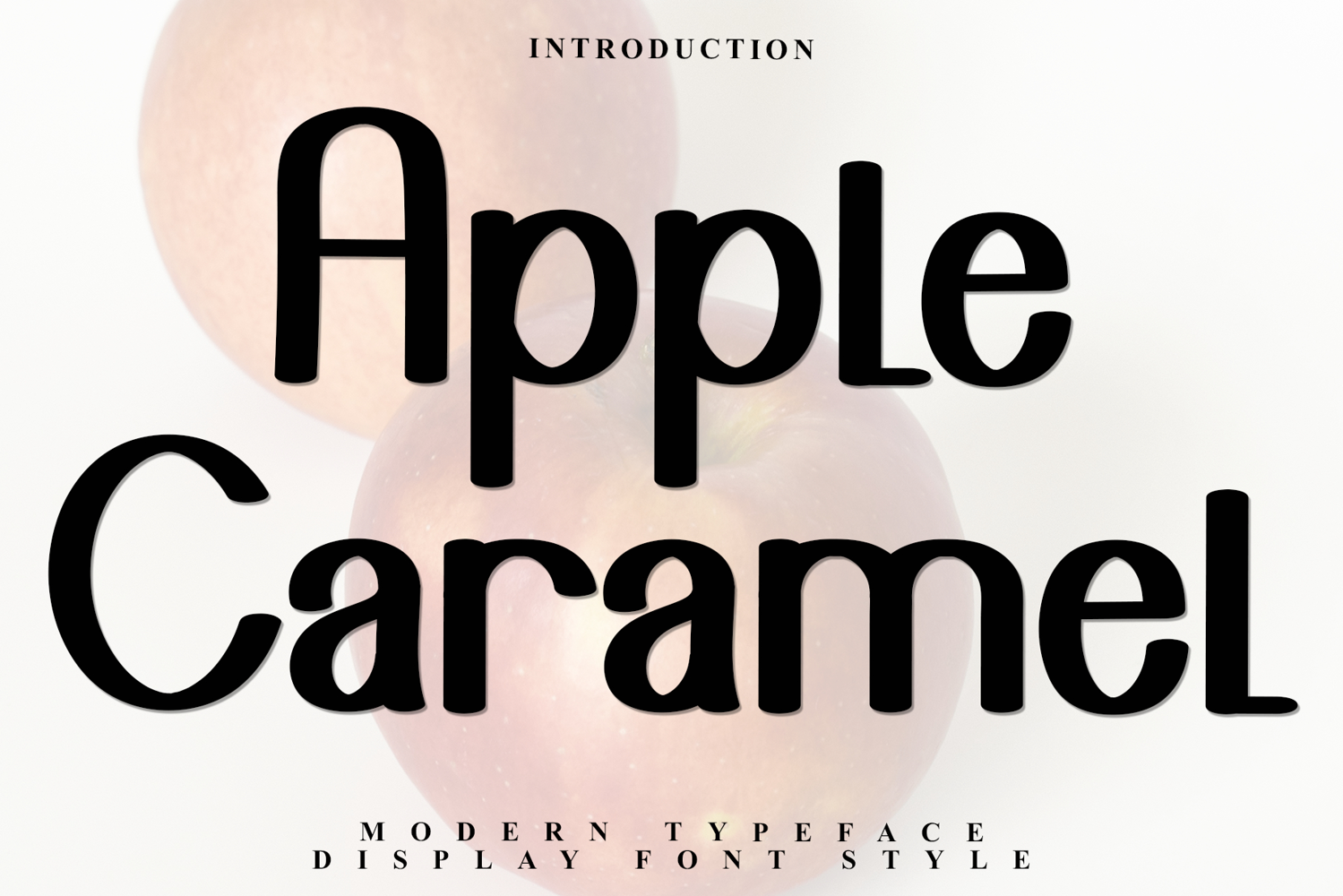
Apple Caramel
Apple Caramel is a beautiful and eye-catching font designed with a soft, unique touch. Its distinctive strokes give it a special character, making it meaningful and versatile for future use. With various characters, it’s perfect for design projects, crafts, and other creative works.